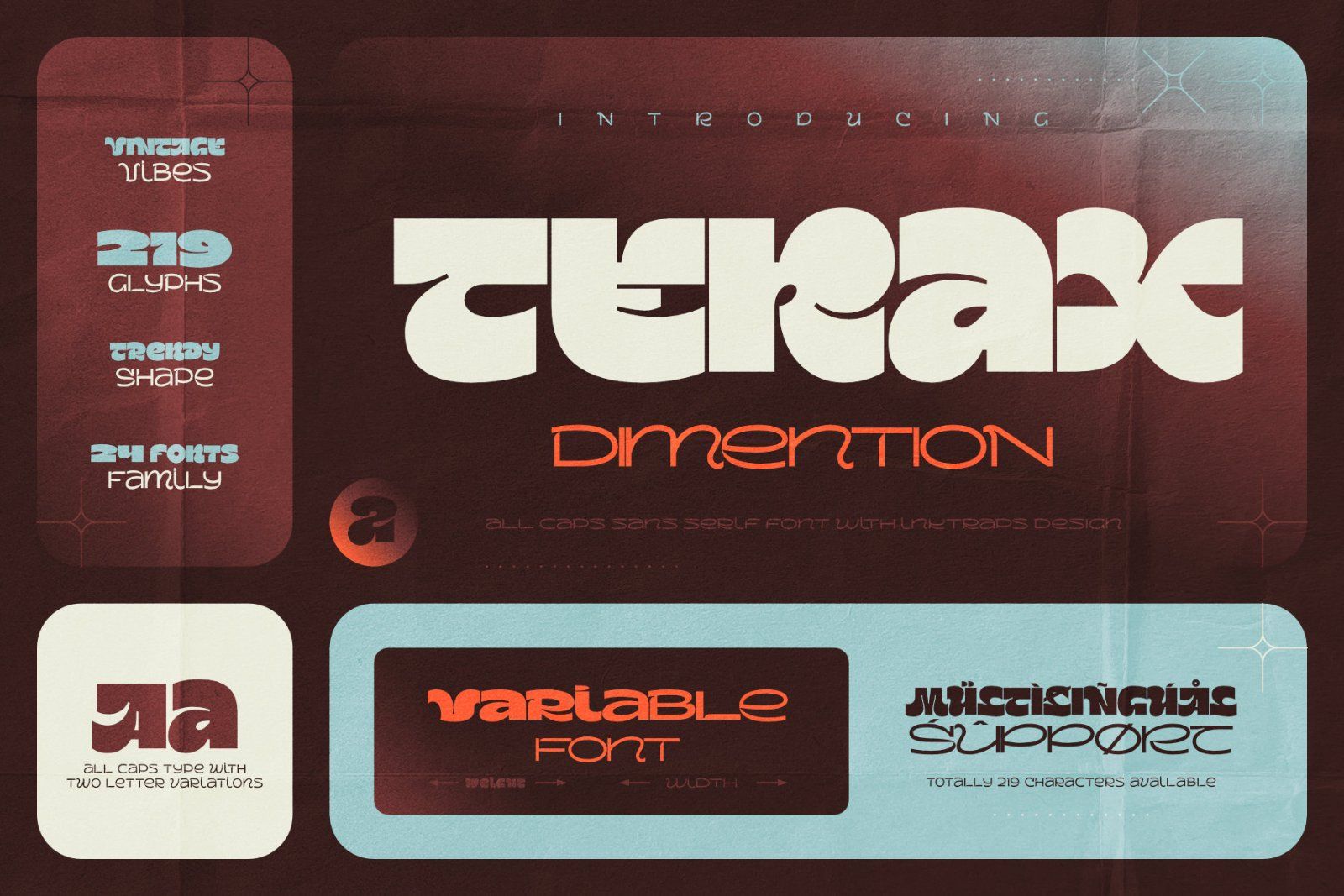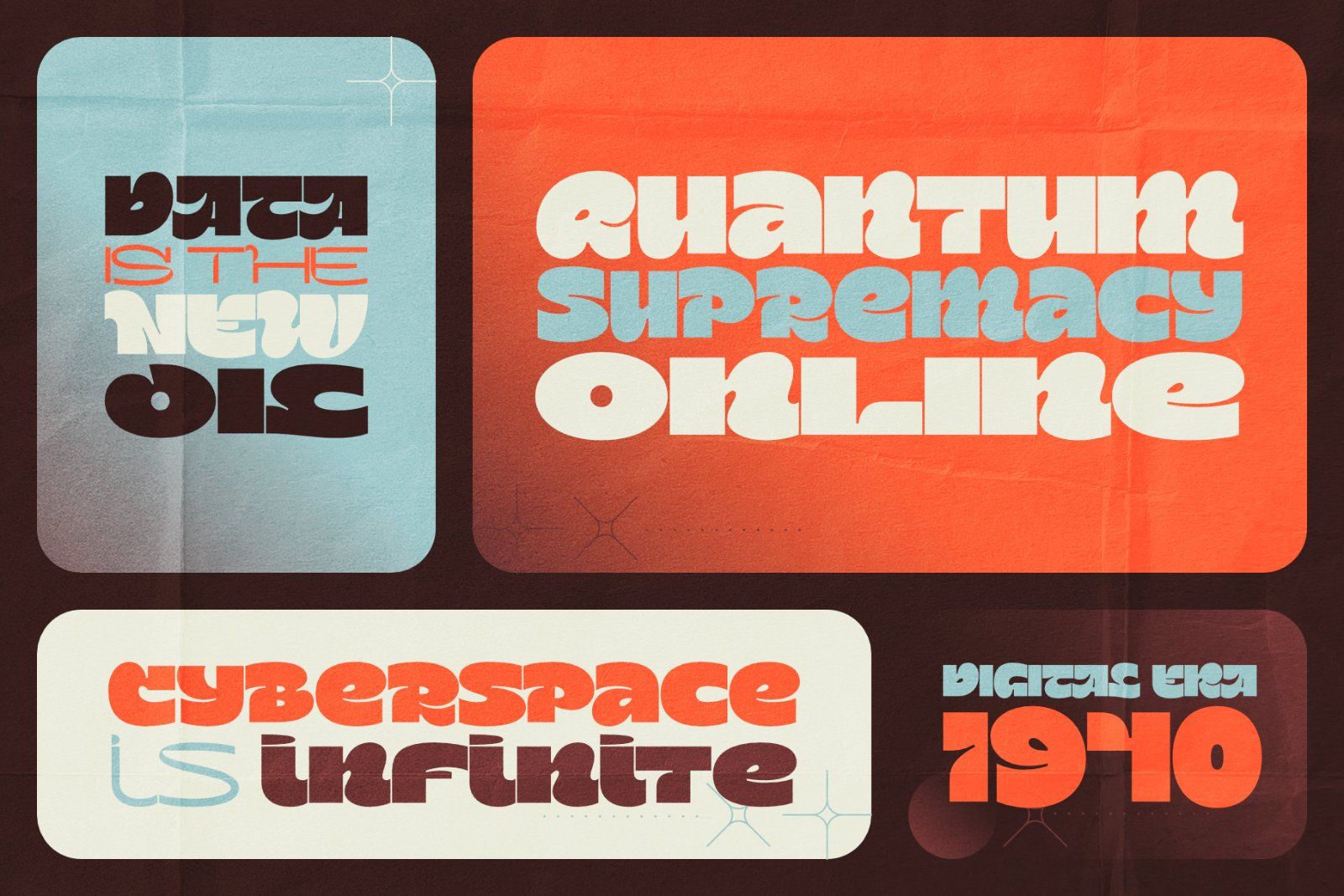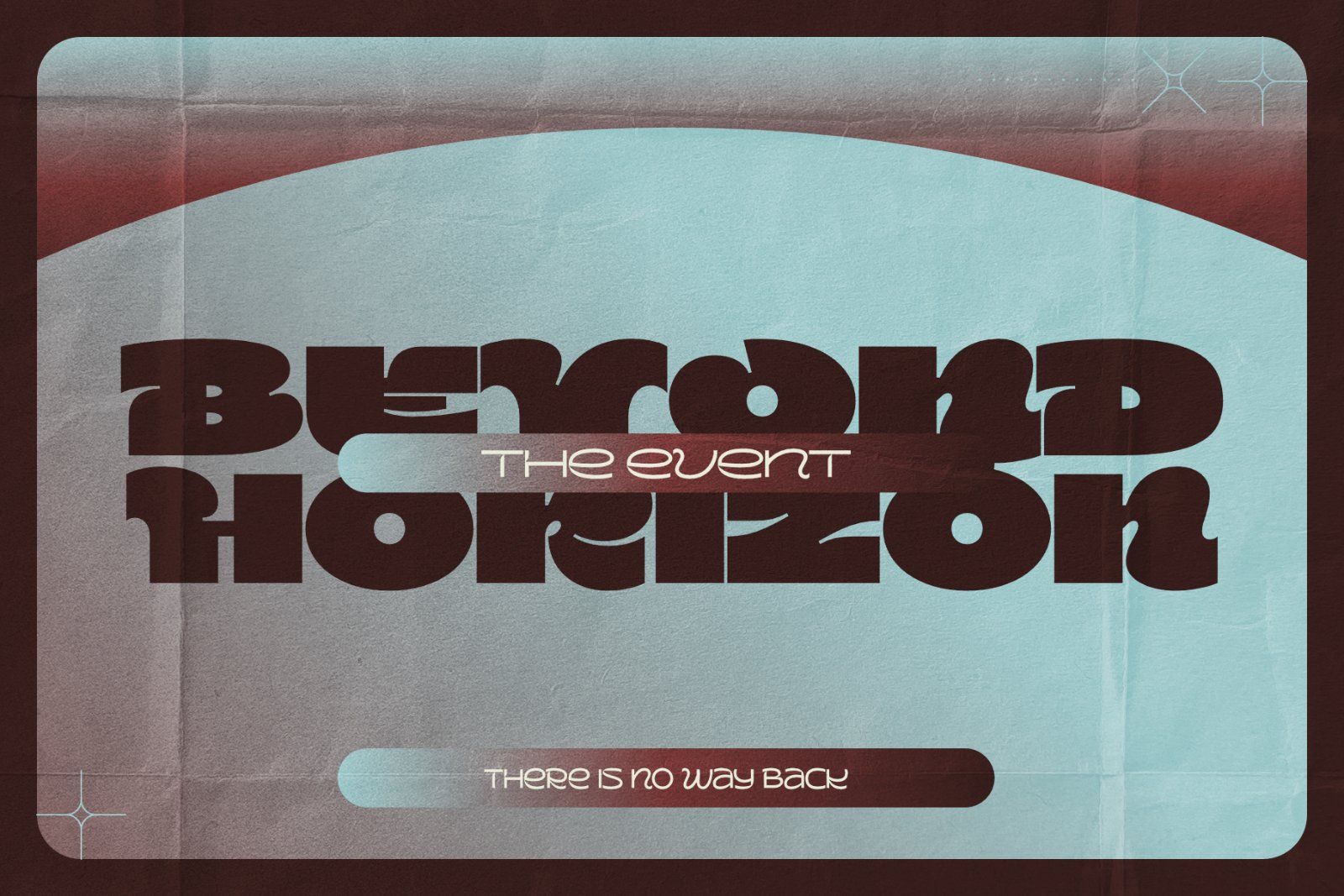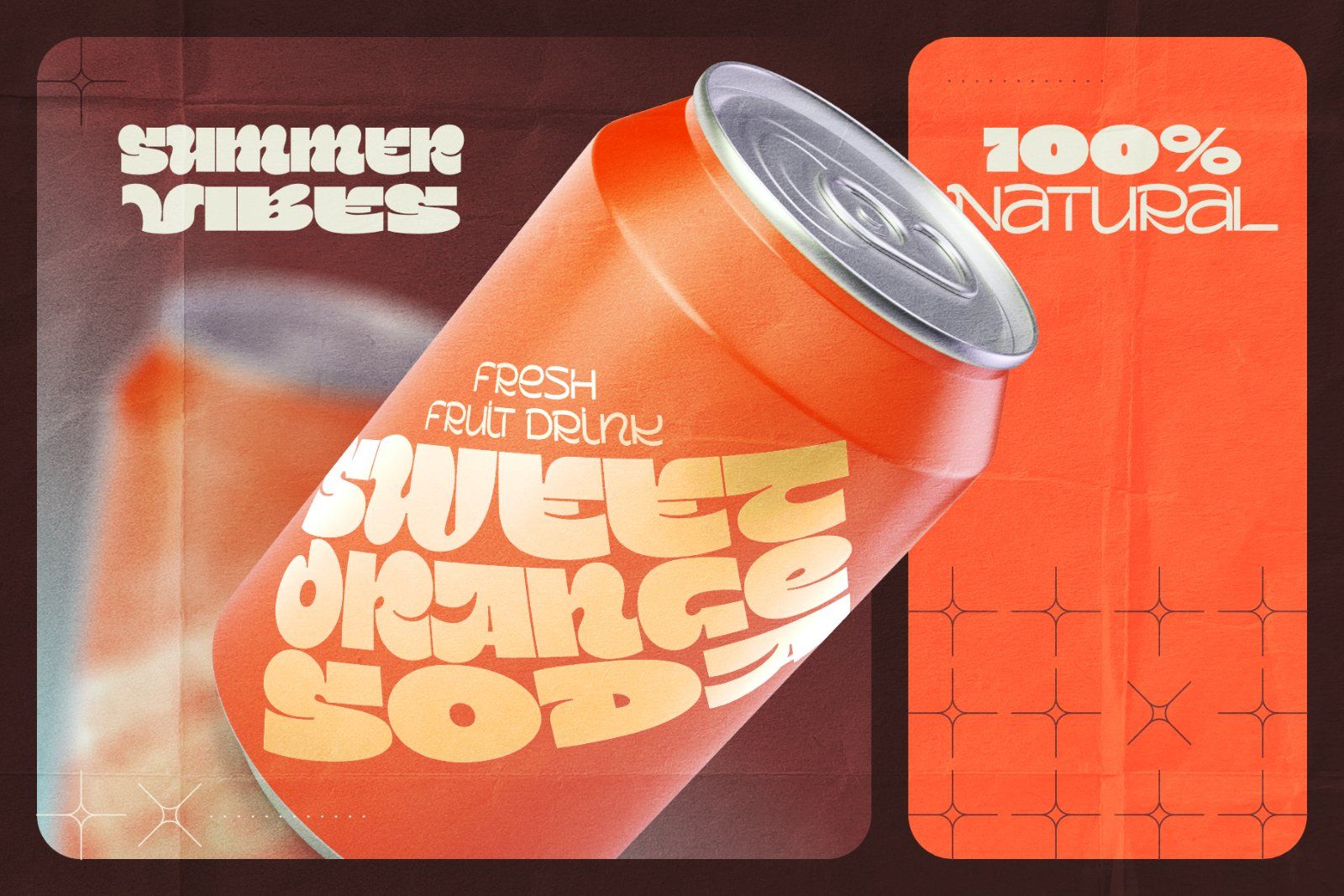
Introducing the Terax Dimention font family, which includes 24 typefaces and a variable font. It is a trendy, solid font featuring vintage vibes and unique ink trap shapes. Terax Dimention offers a wide range of styles, varying in width from Regular to Ultra Expanded and in weight from Regular to Black. The variable font is especially useful for creating tight-fitting lettering blocks, punchy ads & packaging design.
Terax Dimention is an all-caps font, but each letter includes two options to bring more variety to your designs.
This font offers multilingual support — check out the screenshots to see the full character set.